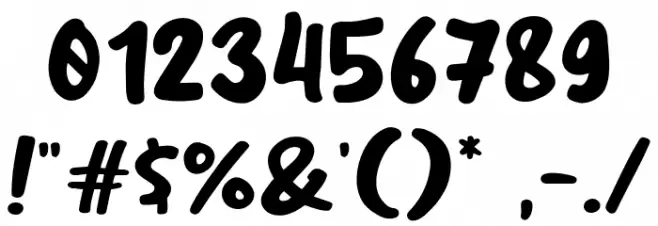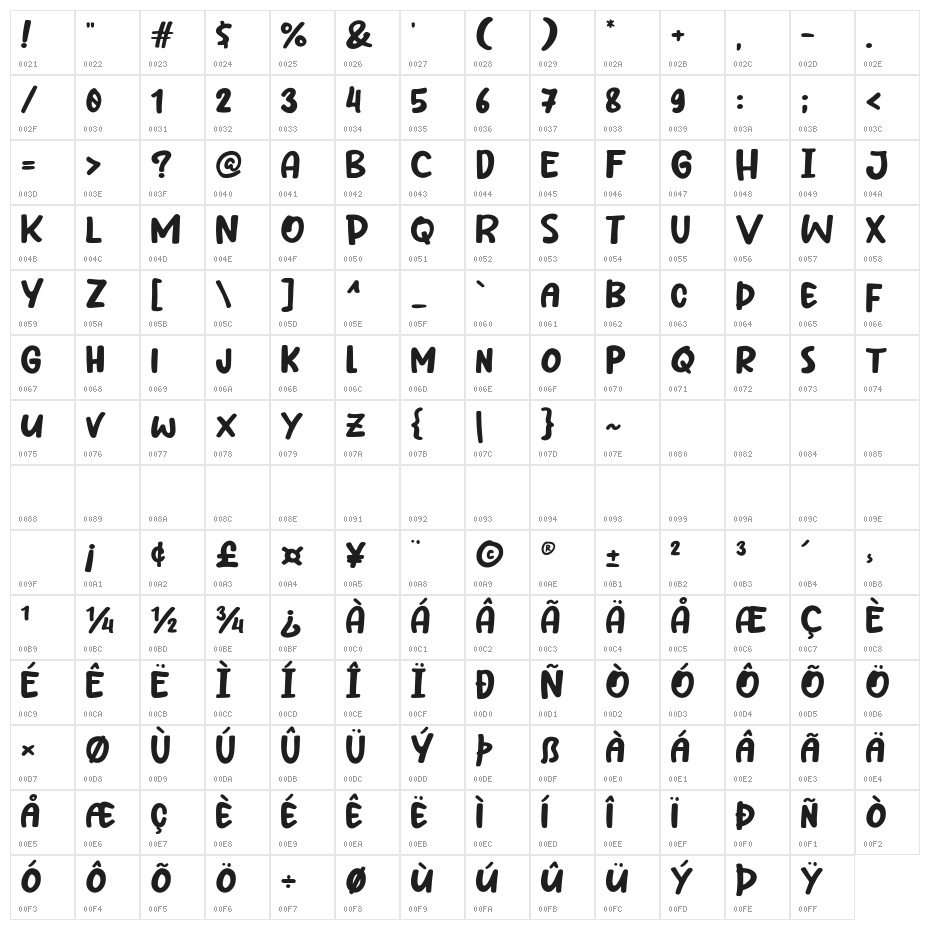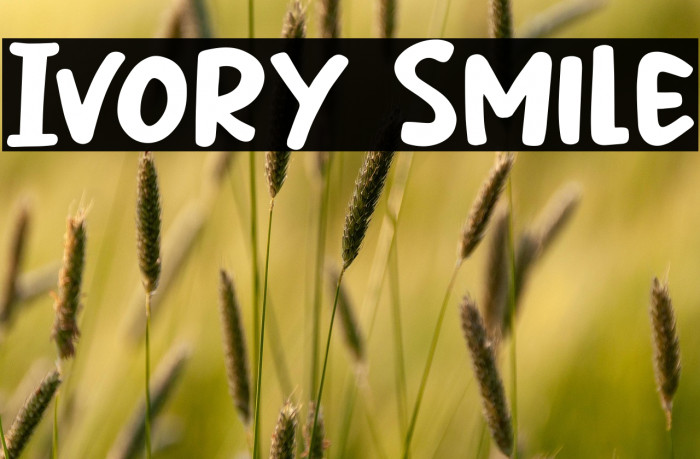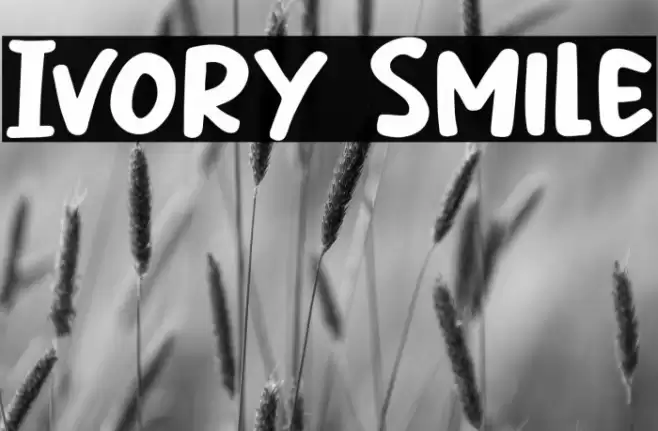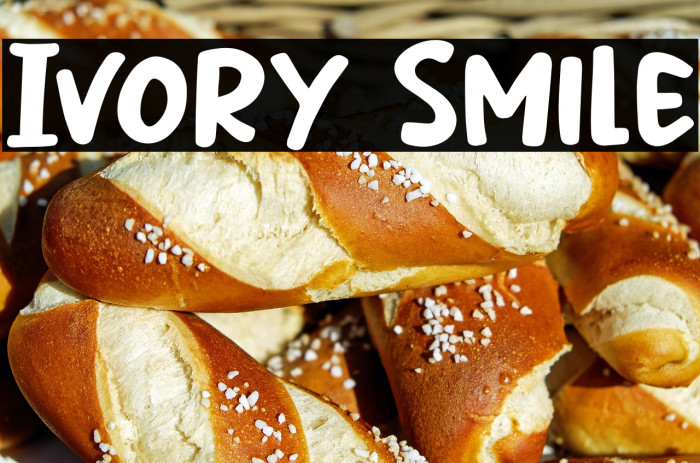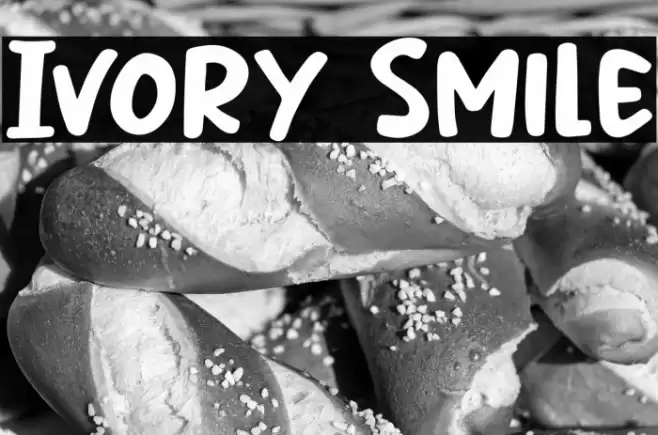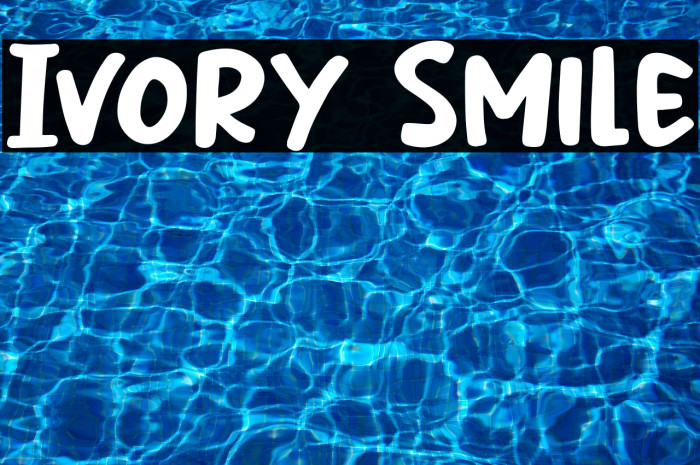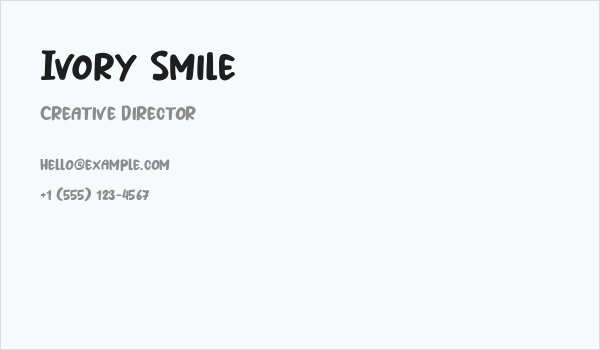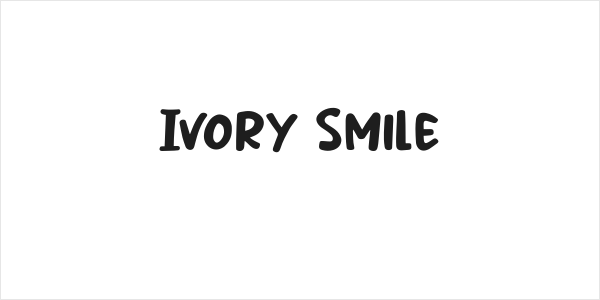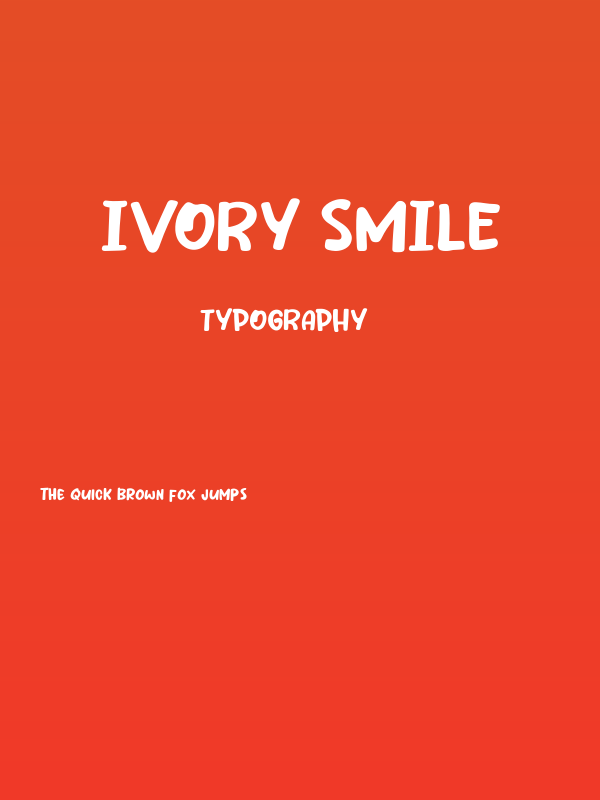
Ivory Smile Font
Ivory Smile Description
This playful and bold font features rounded, thick strokes that give it a friendly and approachable appearance. The characters are slightly irregular, adding a hand-drawn feel that enhances its charm. The uppercase and lowercase letters maintain a consistent style, with a slight slant that adds dynamism. The numbers and special characters are equally bold, ensuring readability and consistency across different uses. This font's unique style makes it ideal for projects that require a touch of whimsy and creativity.